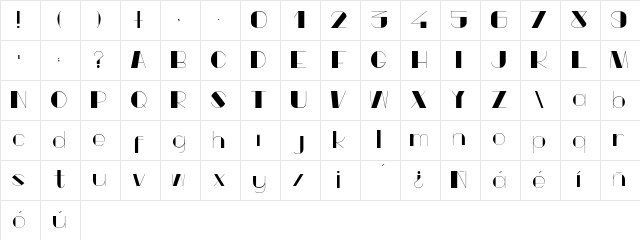
Popeye Type Regular Free Font
Popeye Type Regular
Design Context for Popeye Type
Popeye Type is a composed and adaptable typeface that performs quietly and consistently across a wide range of design contexts.